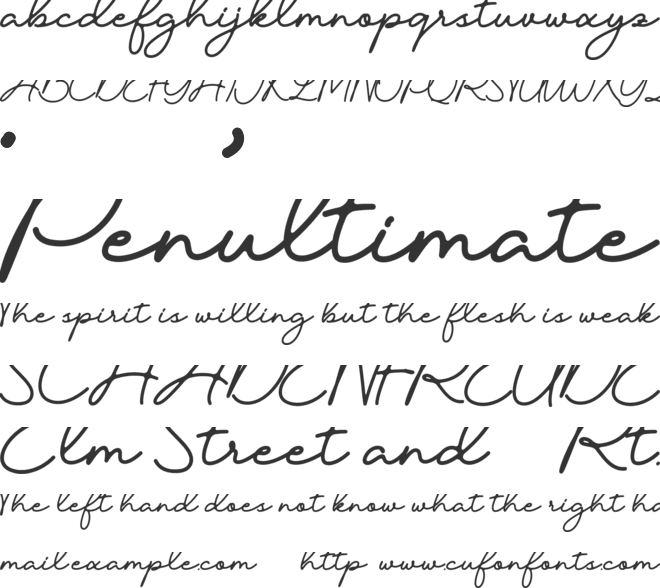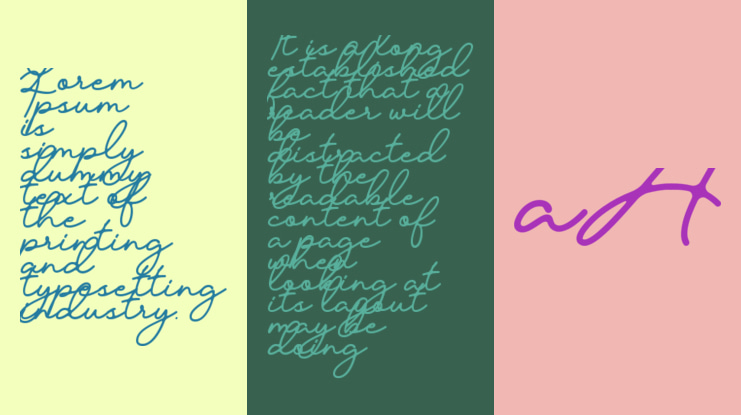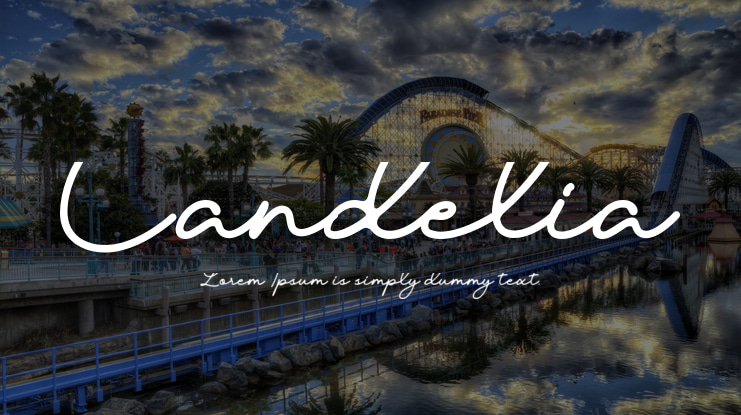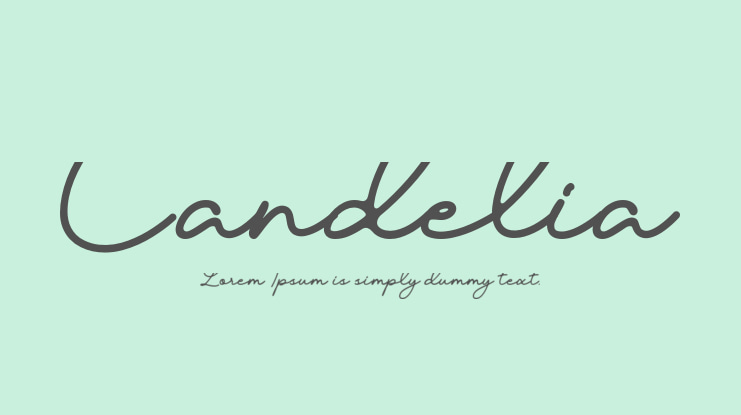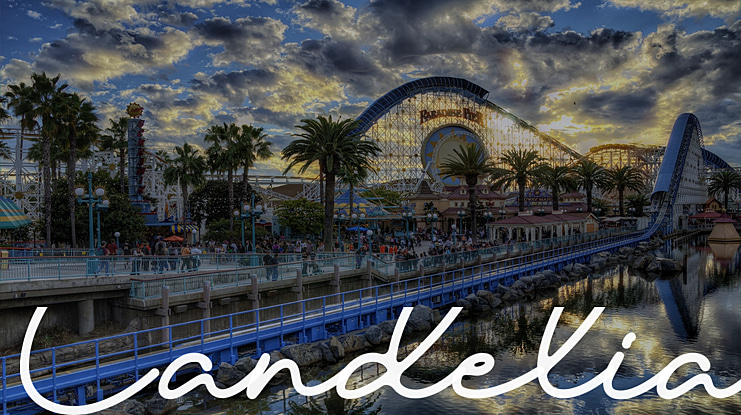
Candelia Font
Presenting Candelia Signature Font - a stylish signature script with a natural and stylish flow. Comes with stylistic alternate, stylistic set, and ligature.
Candelia Signature Font is perfect for branding projects, logo, wedding designs, social media posts, advertisements, product packaging, product designs, label, photography, watermark, invitation, stationery and any projects that need handwriting taste.